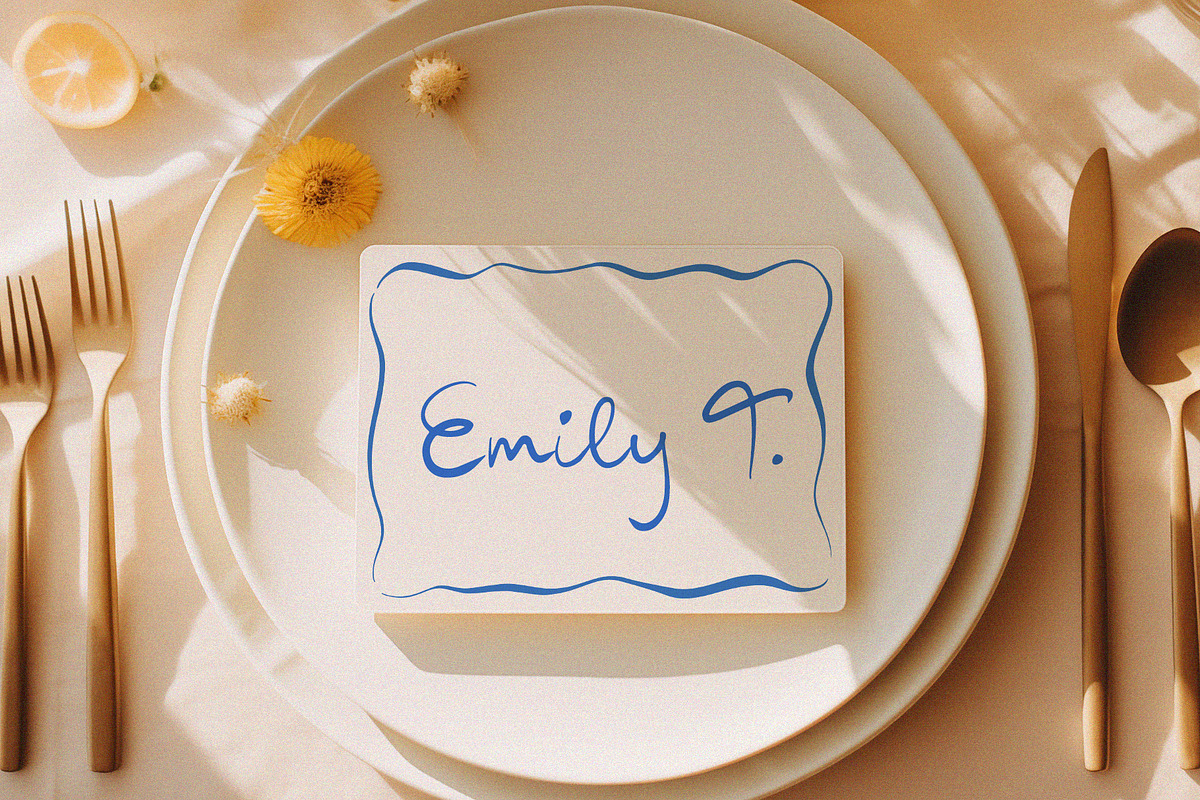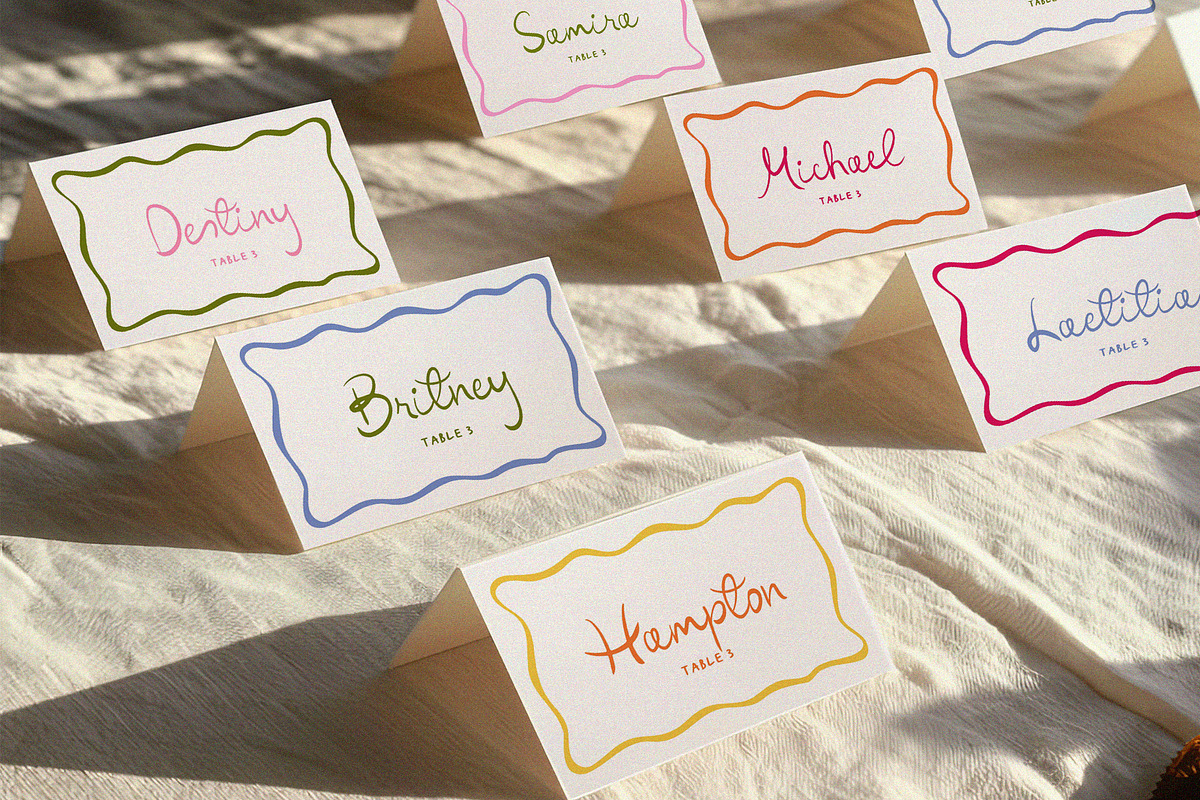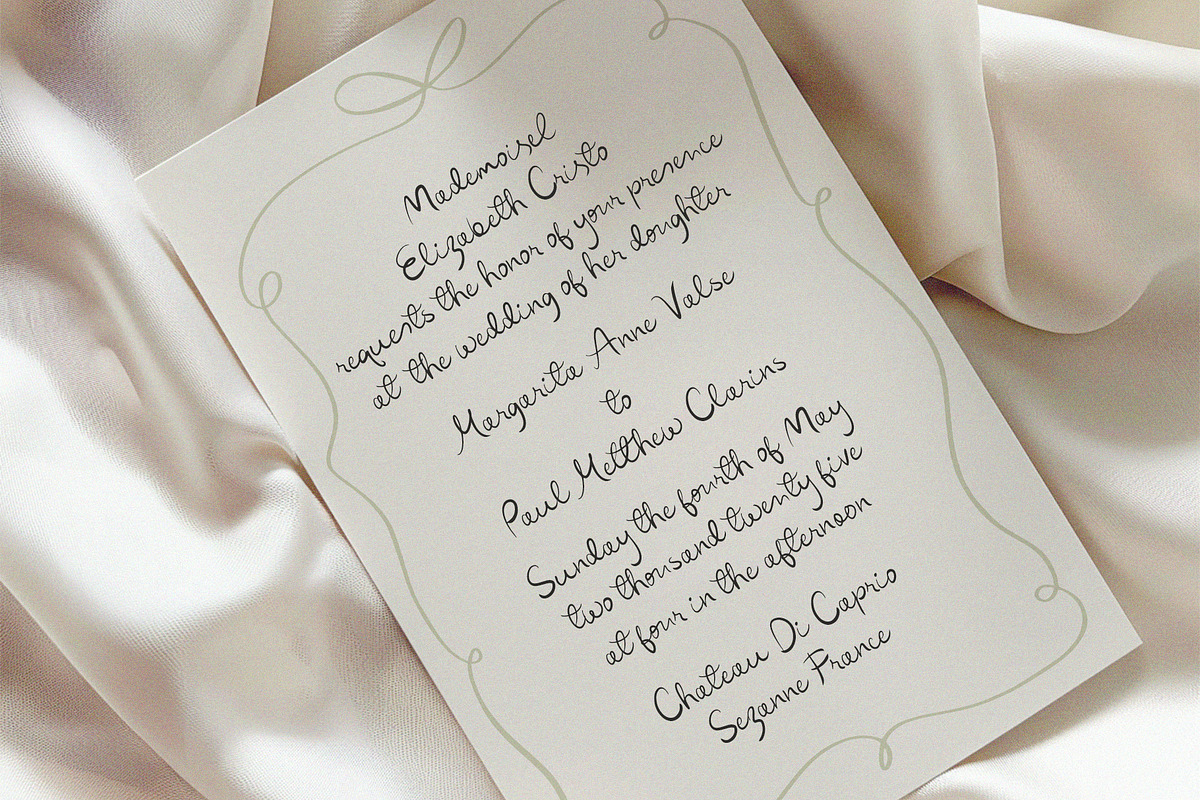
Eternal Blossom is a new trendy handwritten font. It will look lovely for handwritten wedding invitations, menu, modern wall arts, instagram posts, quotes, branding. Eternal Blossom includes full set of Uppercase and Lowercase Basic Characters, Numbers, Punctuation, set of alternatives and ligatures.